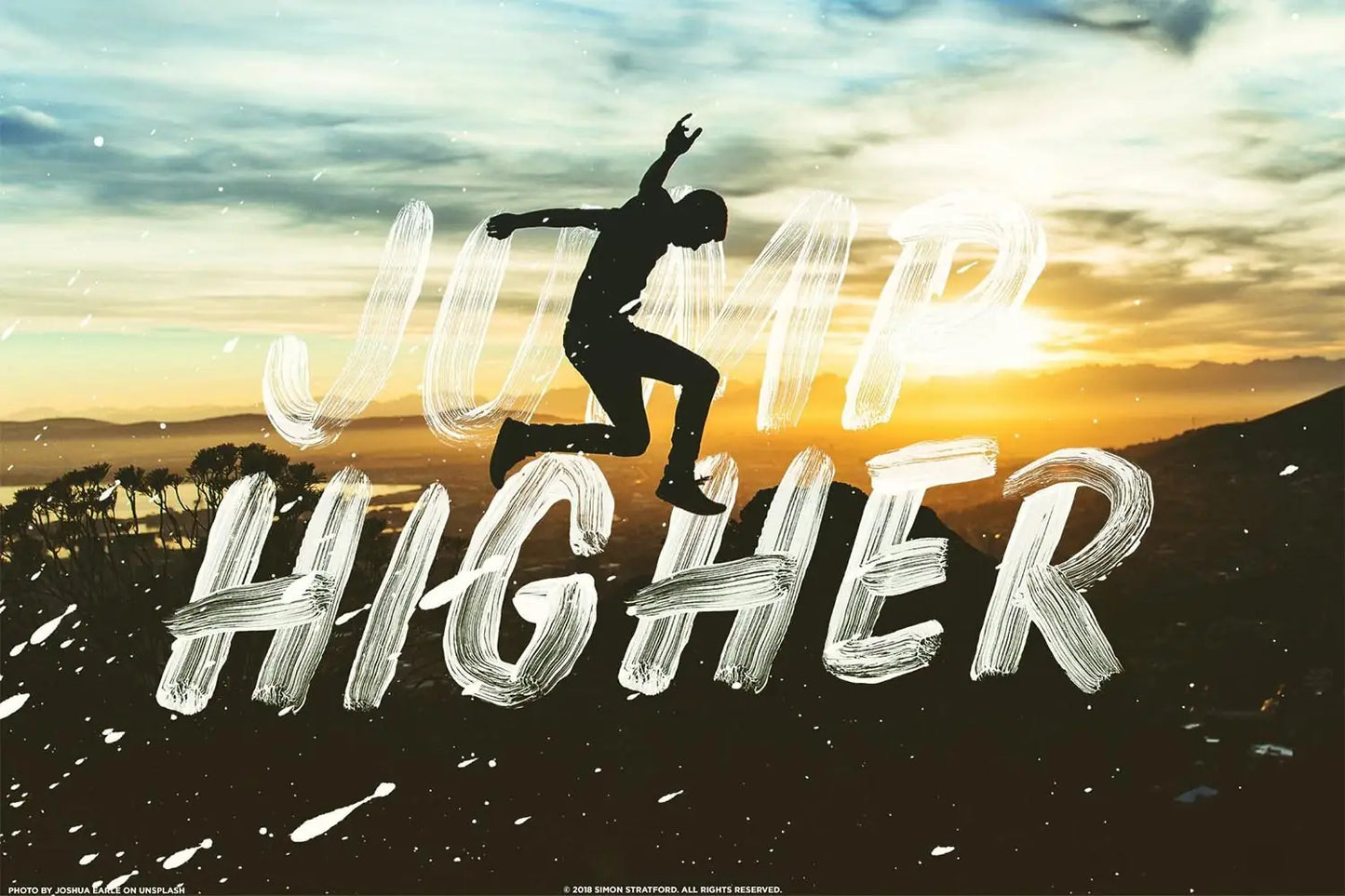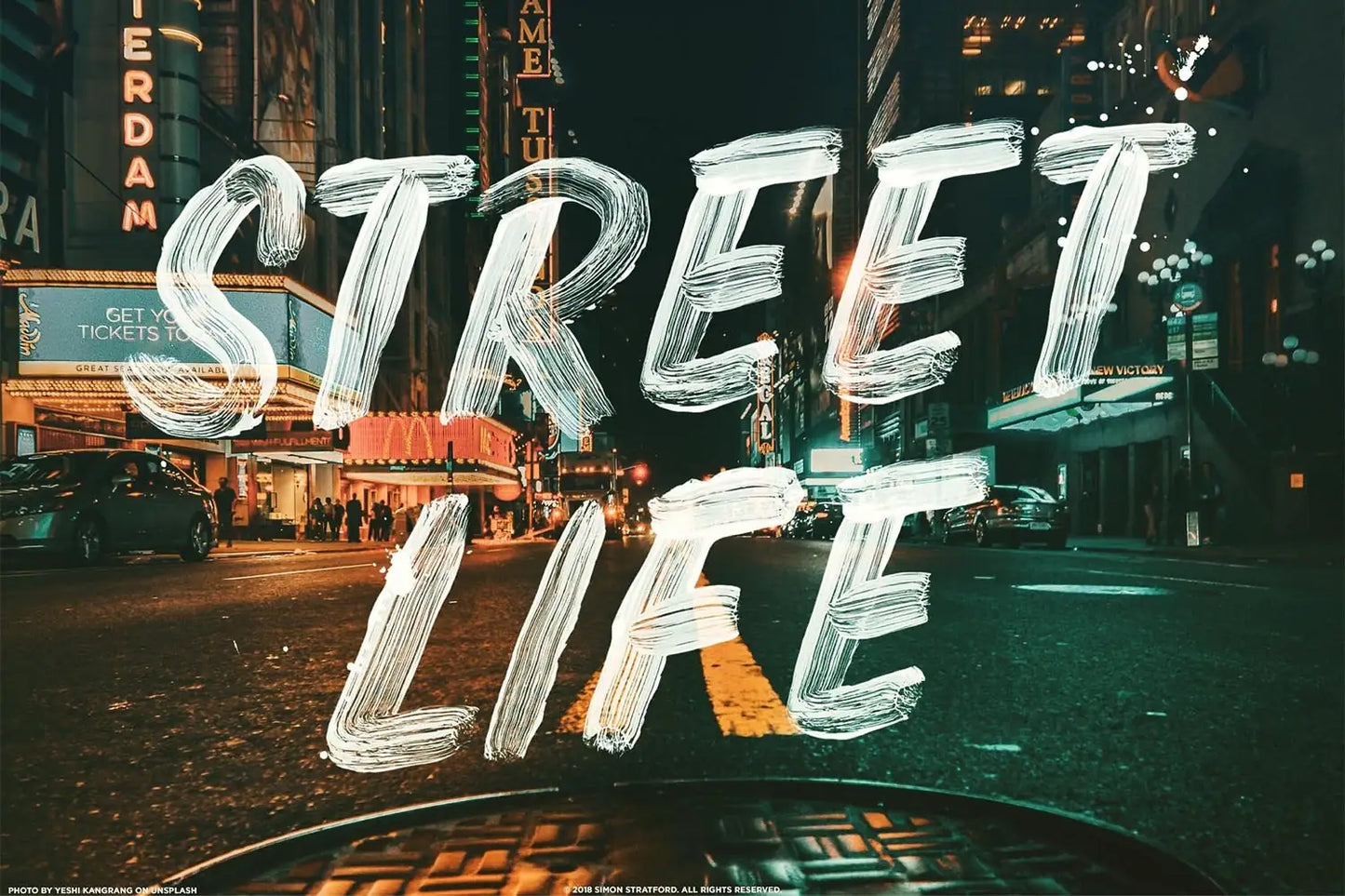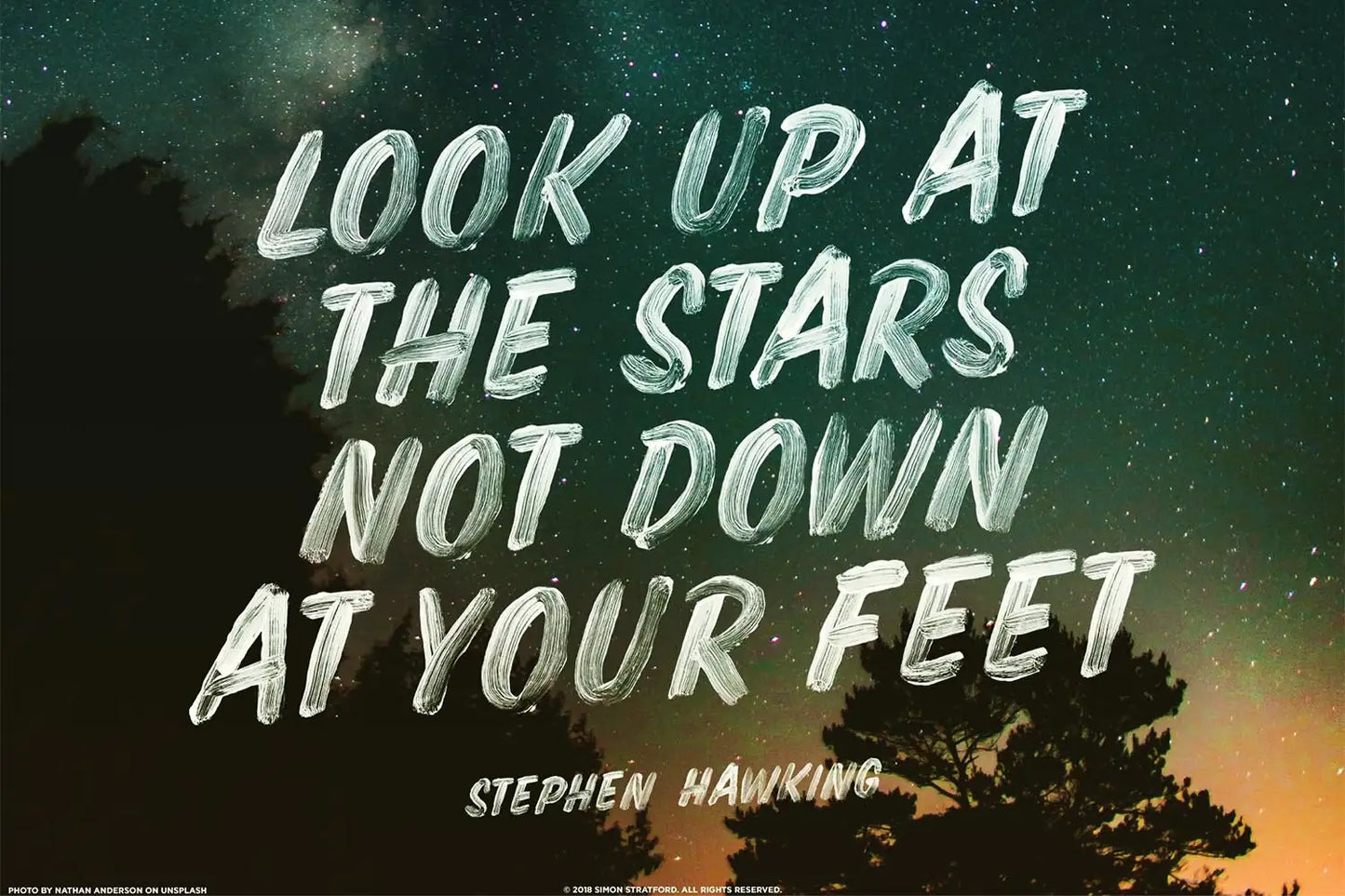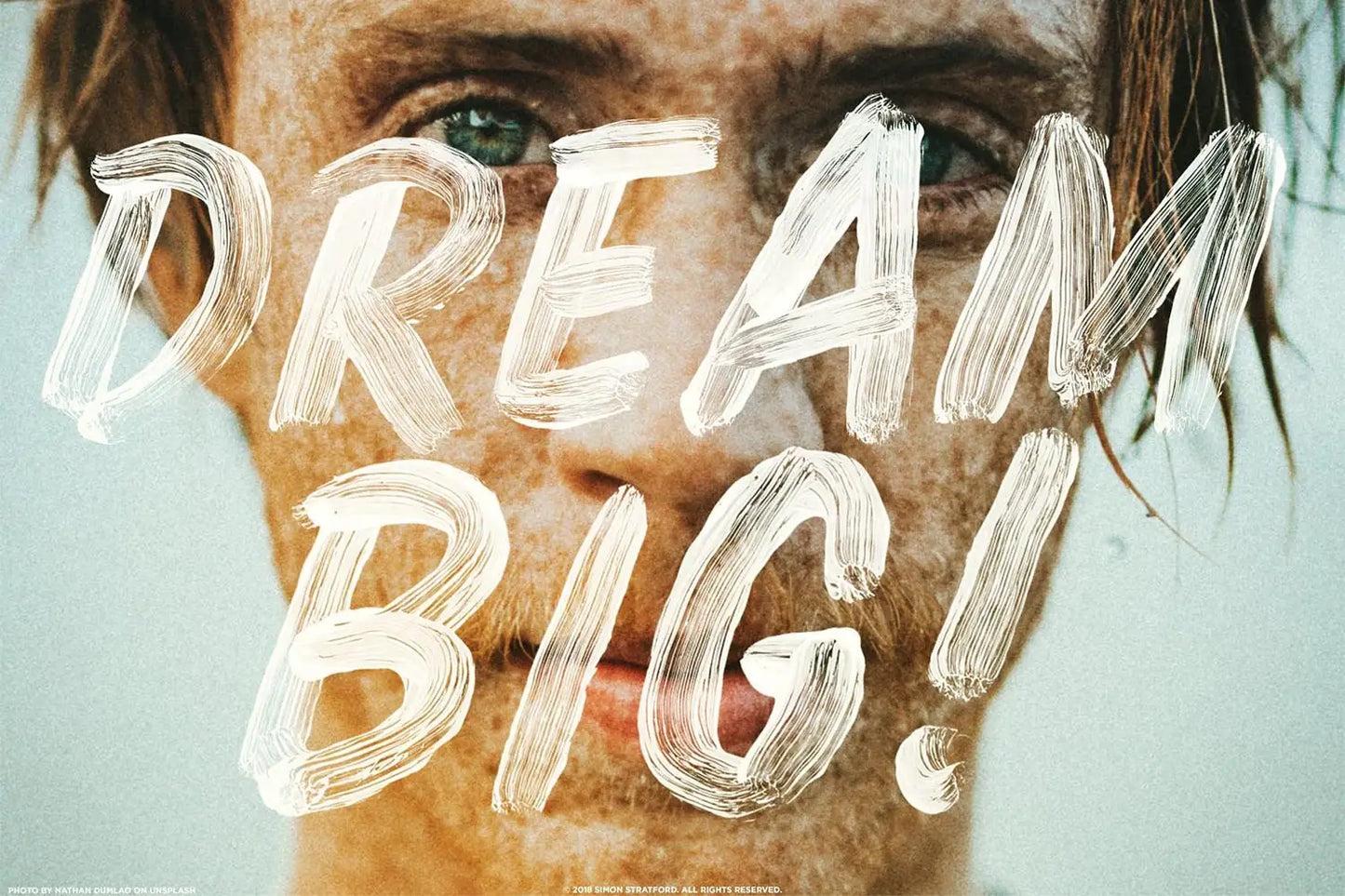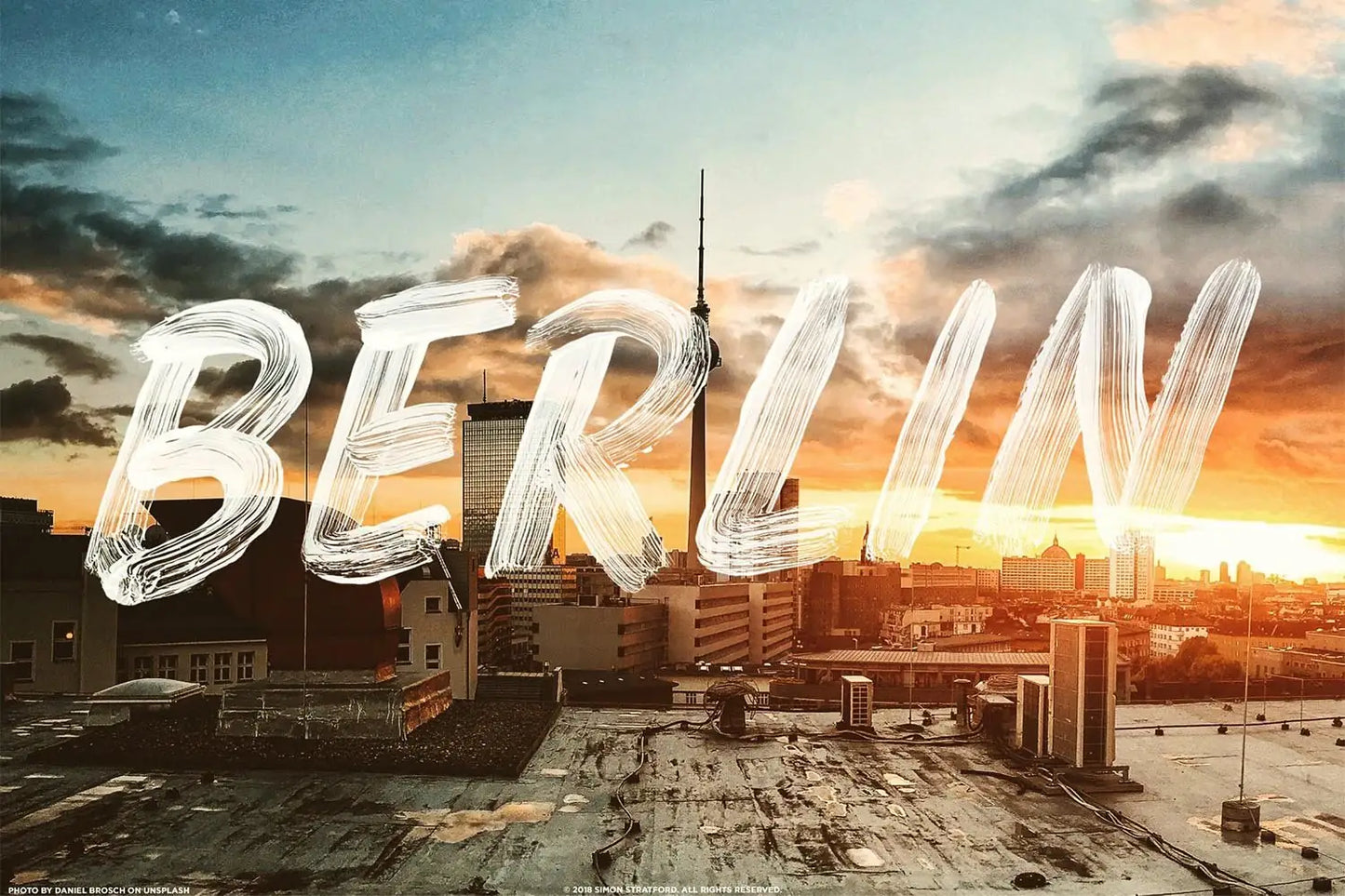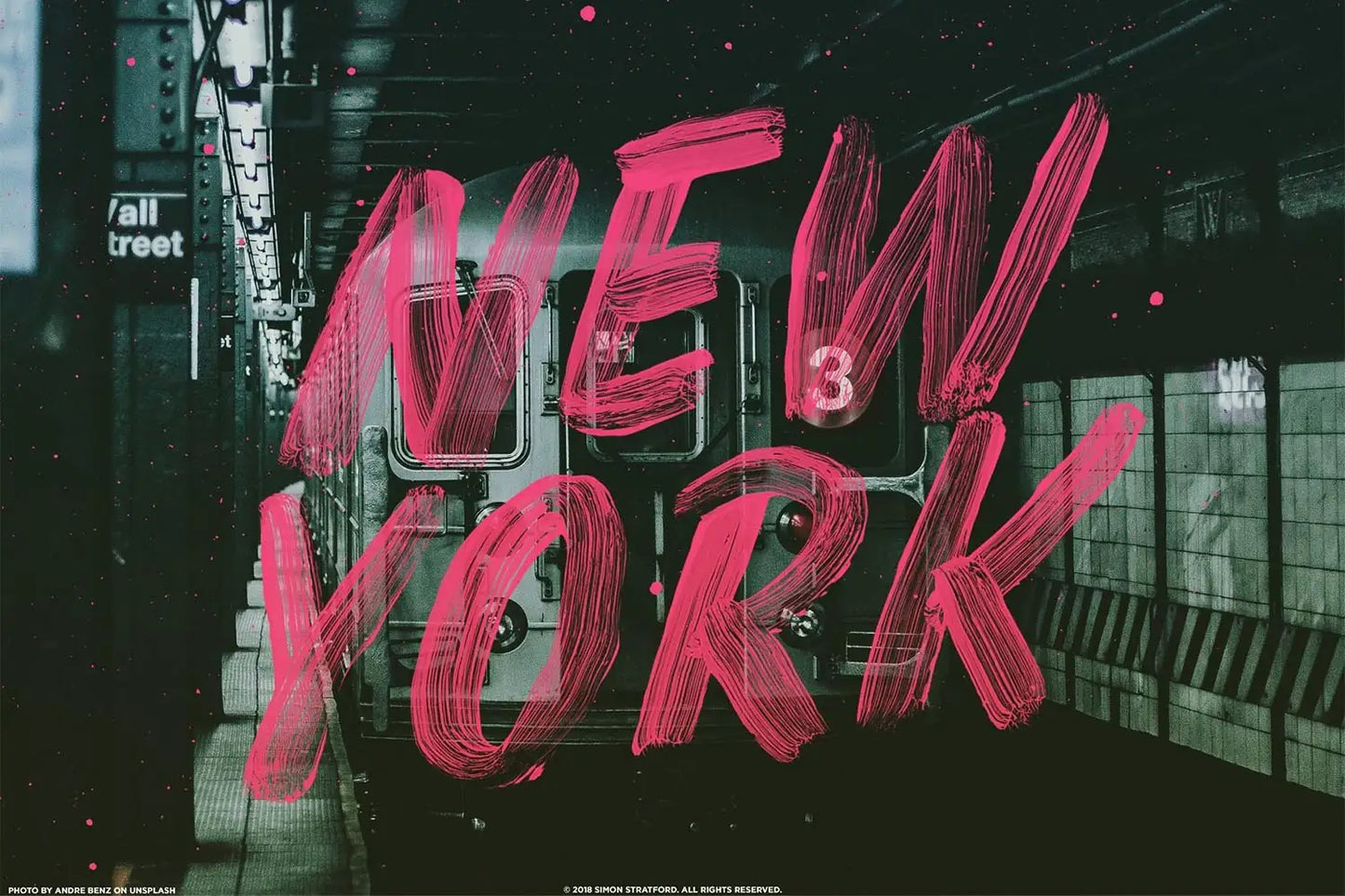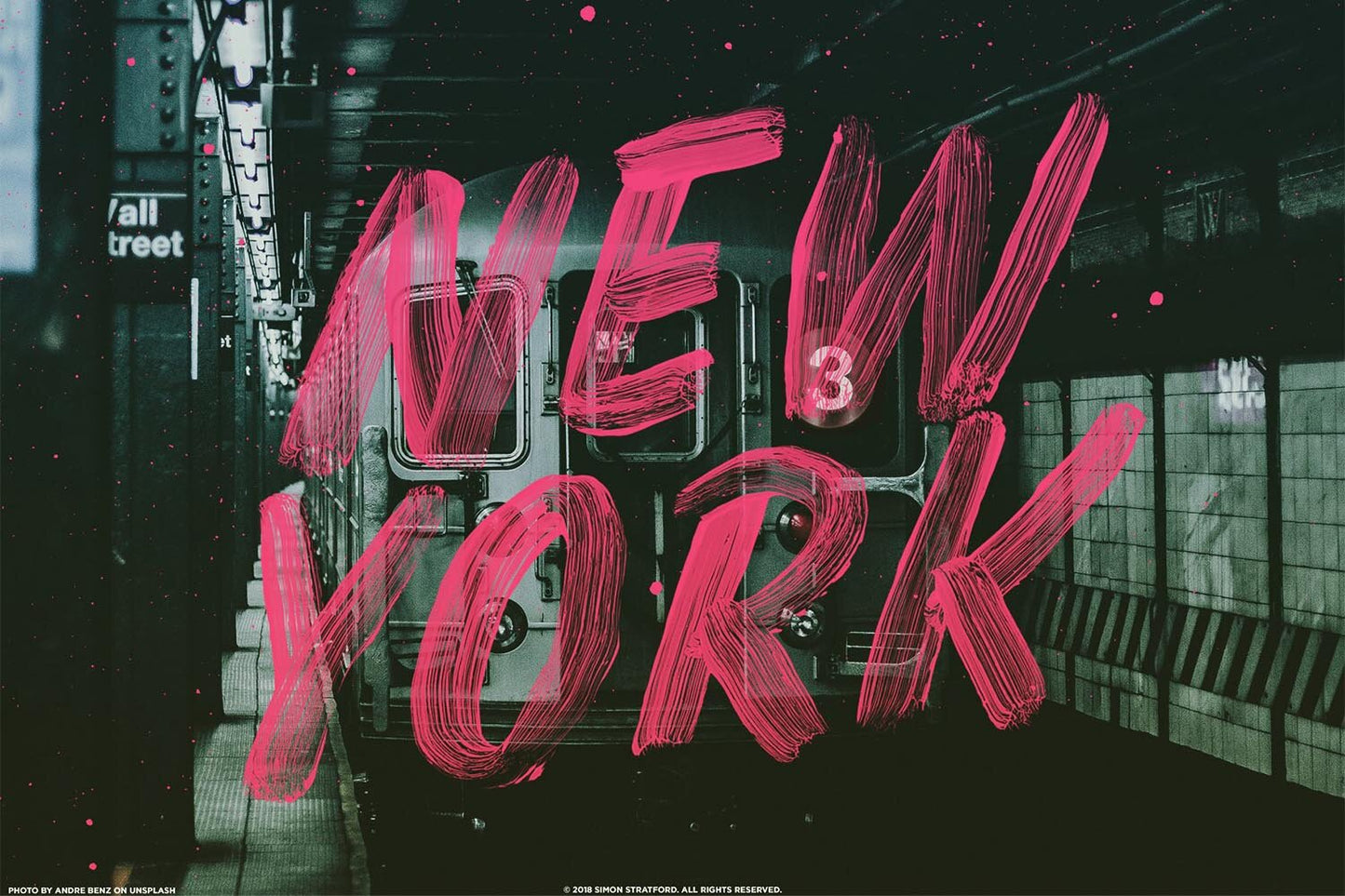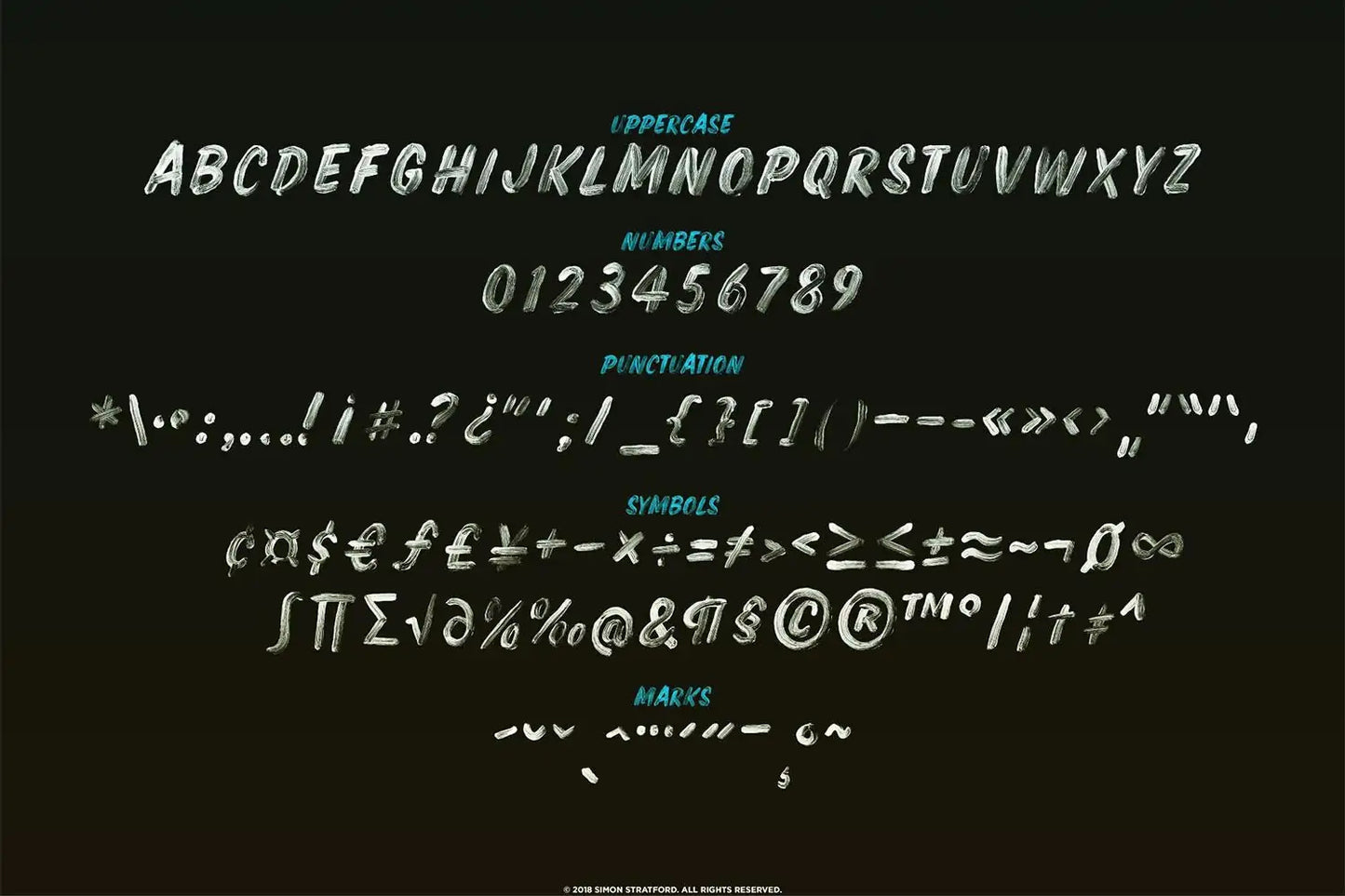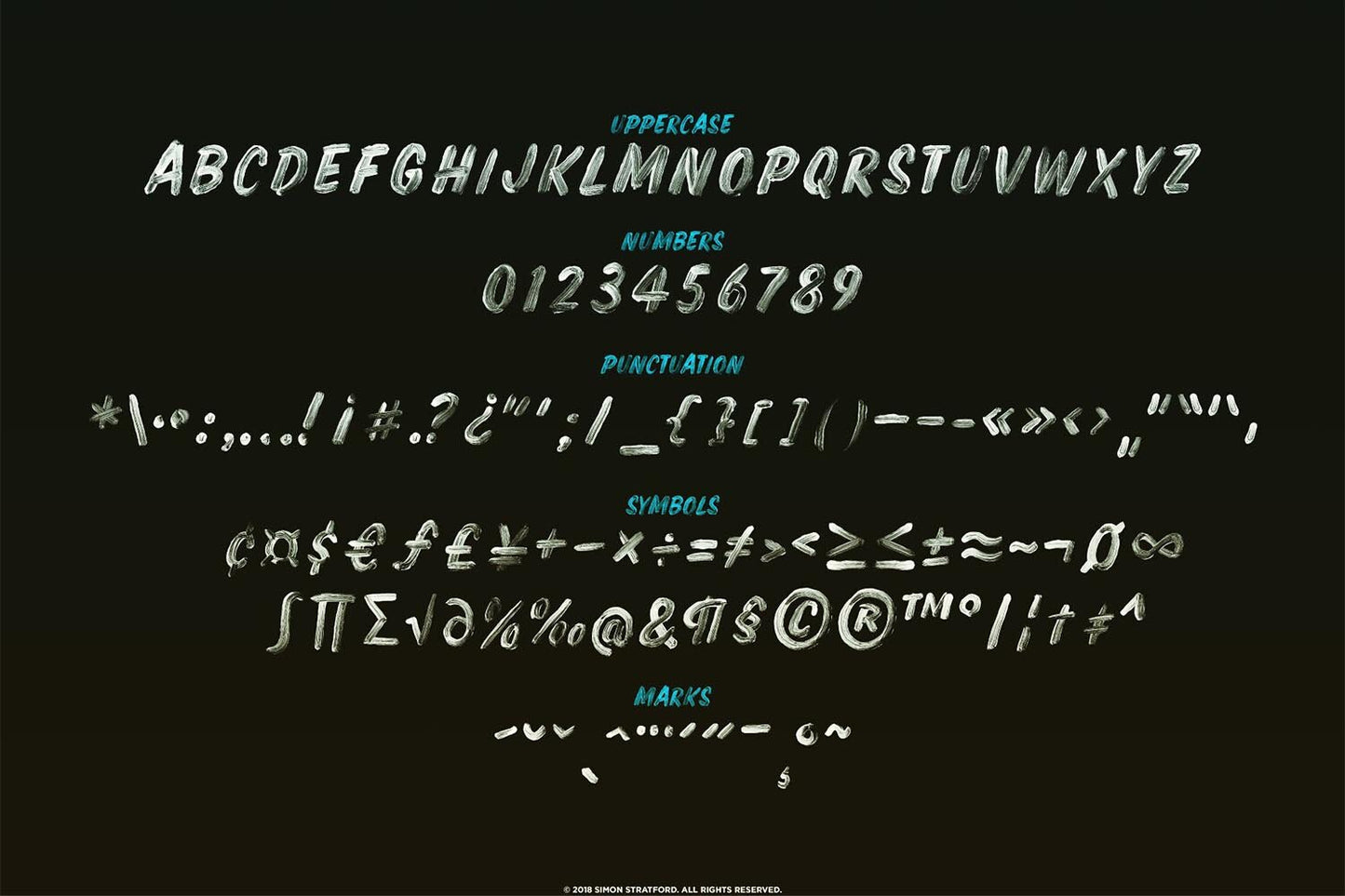
Fierce SVG font
About Fierce SVG font
Fierce font is a colour OpenType-SVG typeface. I hand-painted it using acrylic paint on a clear film, bringing full-colour fonts to Photoshop and other native Mac apps using the new OpenType technology.
The great thing about this font is that it retains all the amazing details and transparency of my original work, including the grime and dirt that real paint brings.
Fierce is a unicase font, containing only uppercase letters.
With built-in transparency, you can easily change the colour of each letter in Photoshop by adding a colour overlay.
If Fierce Font were a celebrity
Just as Idris Elba is known for his powerful and versatile acting, Fierce font has a bold and dynamic design, capable of grabbing attention and leaving a lasting impression.